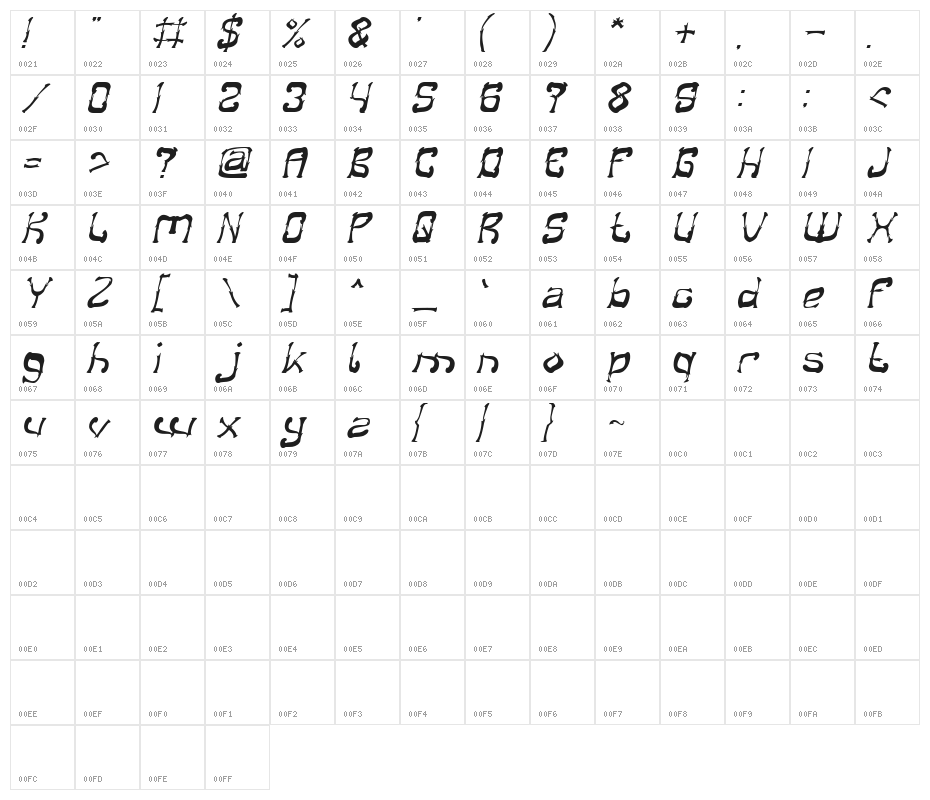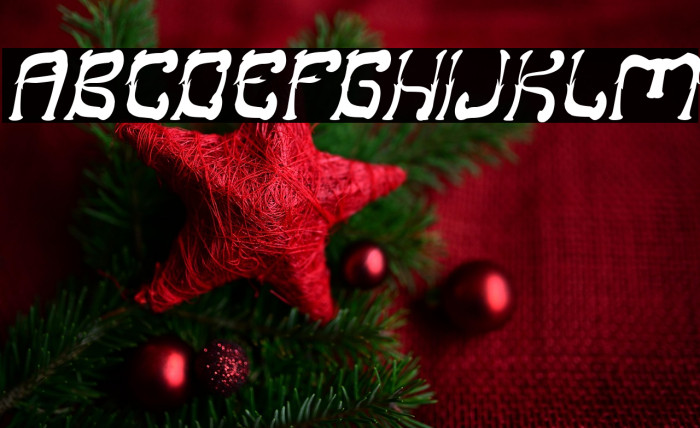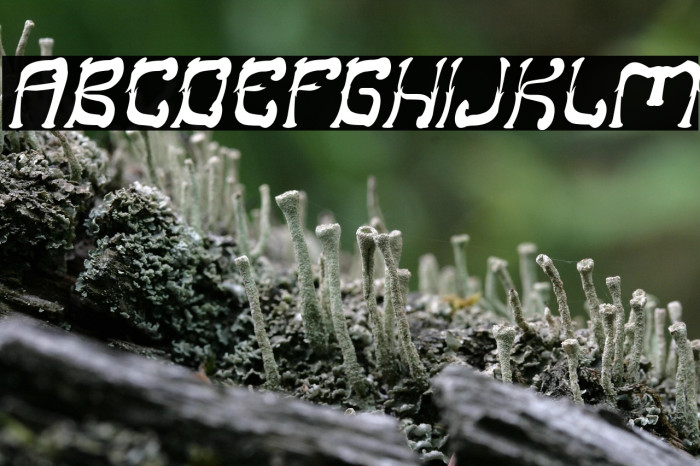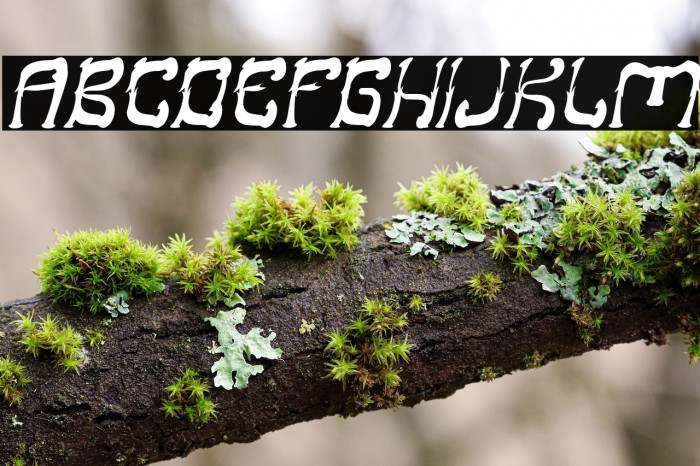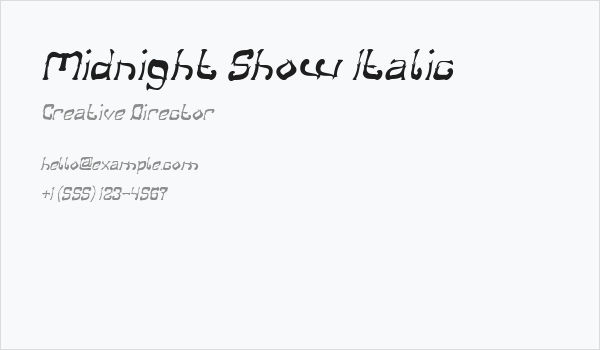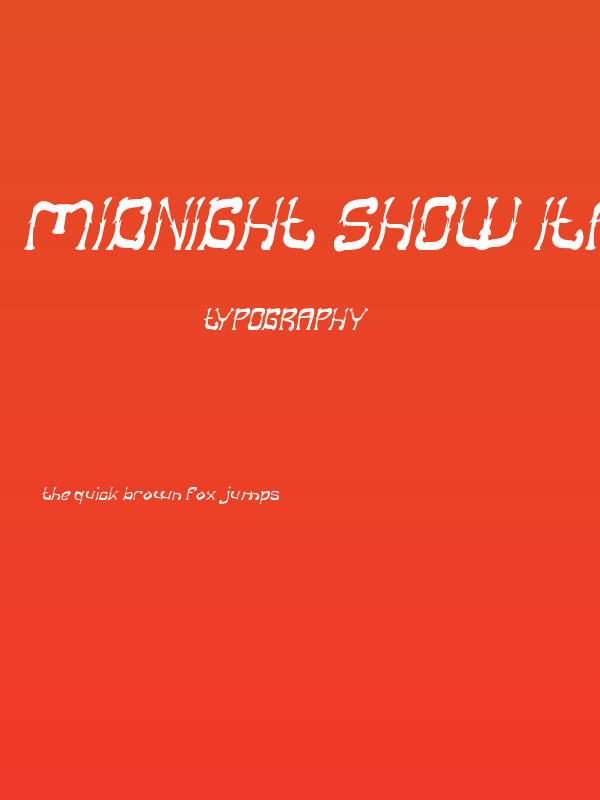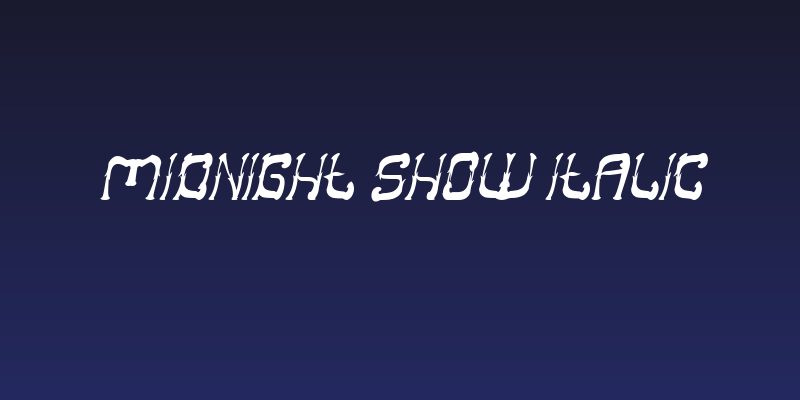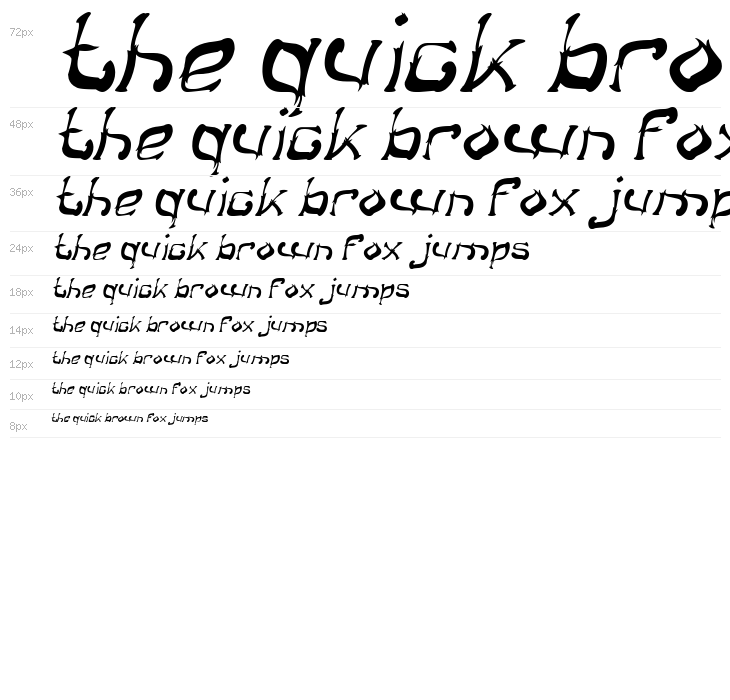
Midnight Show Italic Font
Midnight Show Italic Description
This font features a dynamic and edgy design with a handwritten, brush-like appearance. The characters have a unique, slightly distorted form that gives them a sense of movement and energy. The strokes are uneven, with varying thickness that adds to the font's dramatic and artistic flair. The uppercase and lowercase letters maintain a consistent style, while the numbers and special characters complement the overall aesthetic. This font is perfect for projects that require a bold and expressive touch.
| Name | Midnight Show Italic |
| Font Family | Midnight Show |
| Overall Style | Modern, Artistic |
| Proposed Projects | Ideal for music album covers, event posters, artistic branding, and creative social media graphics. |